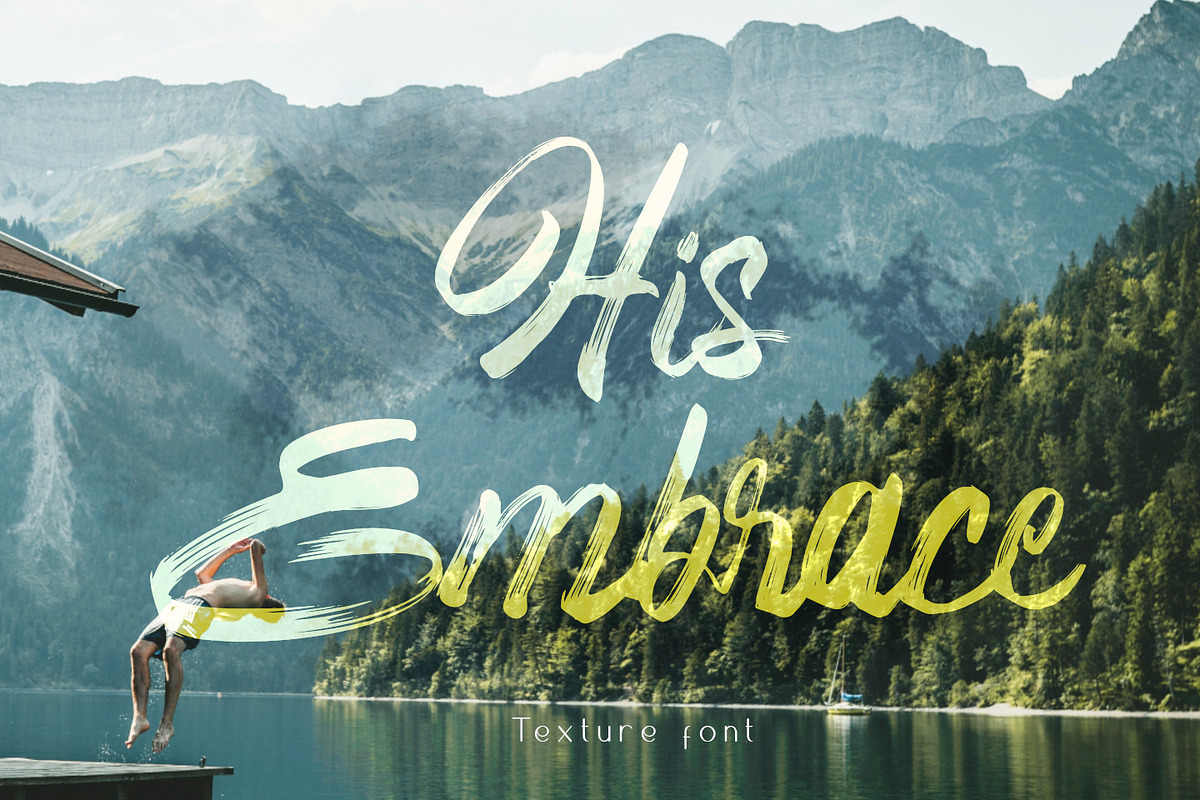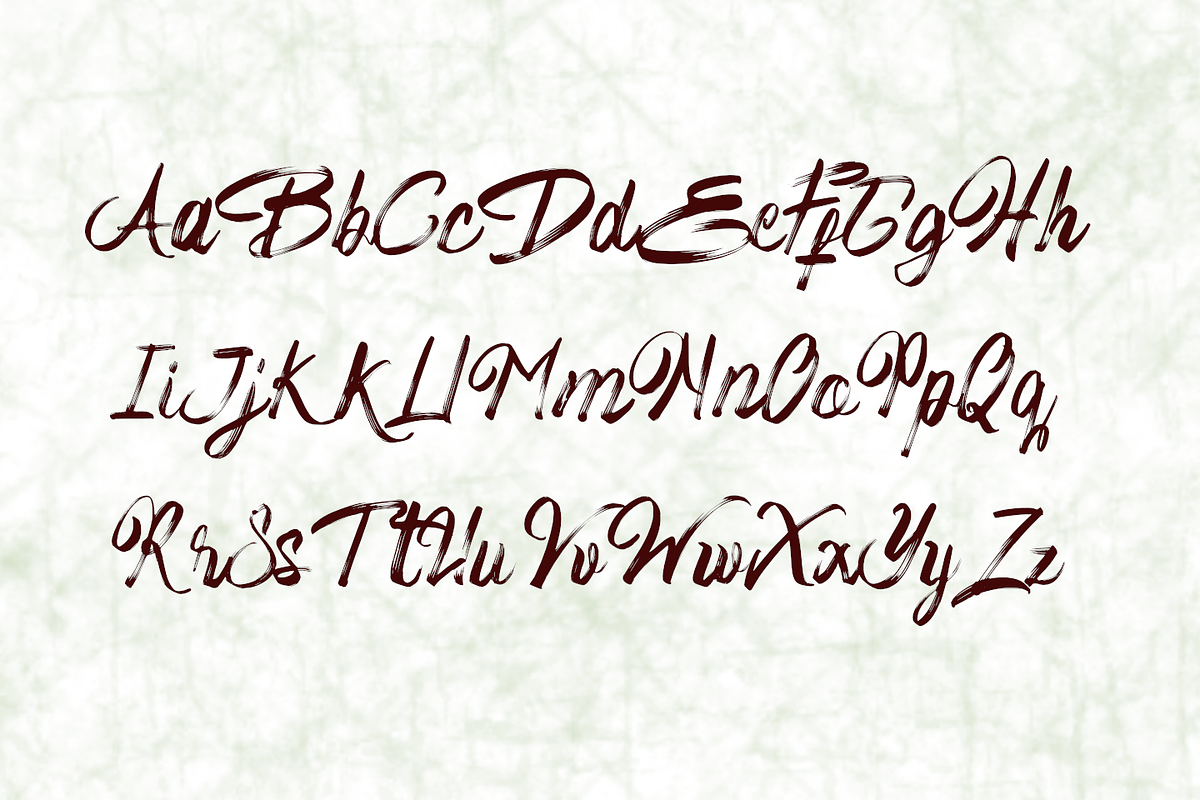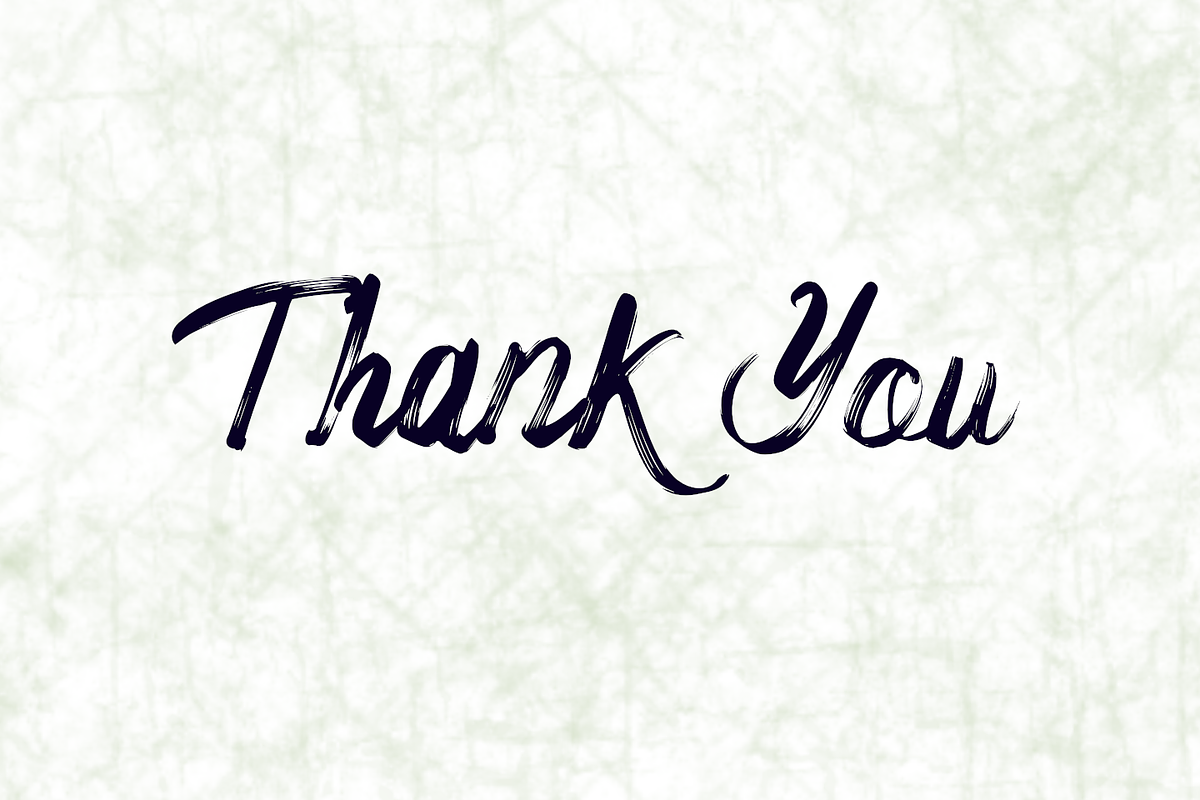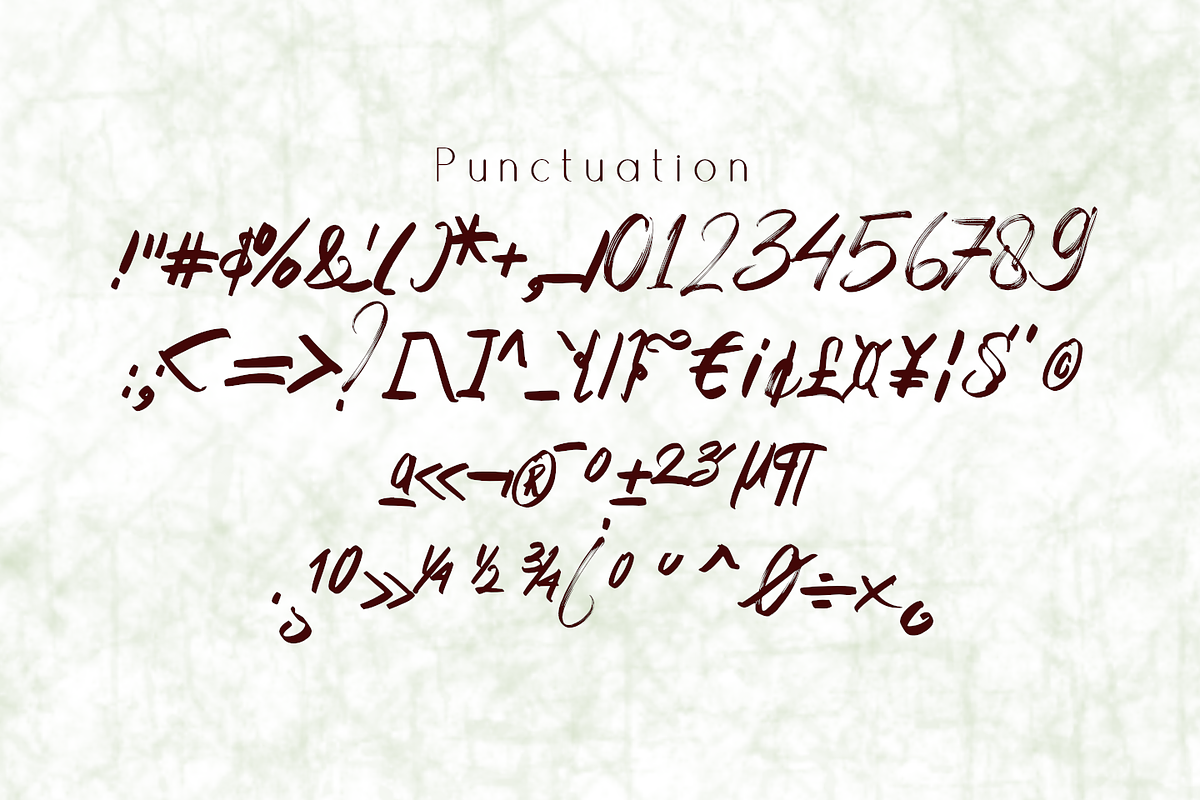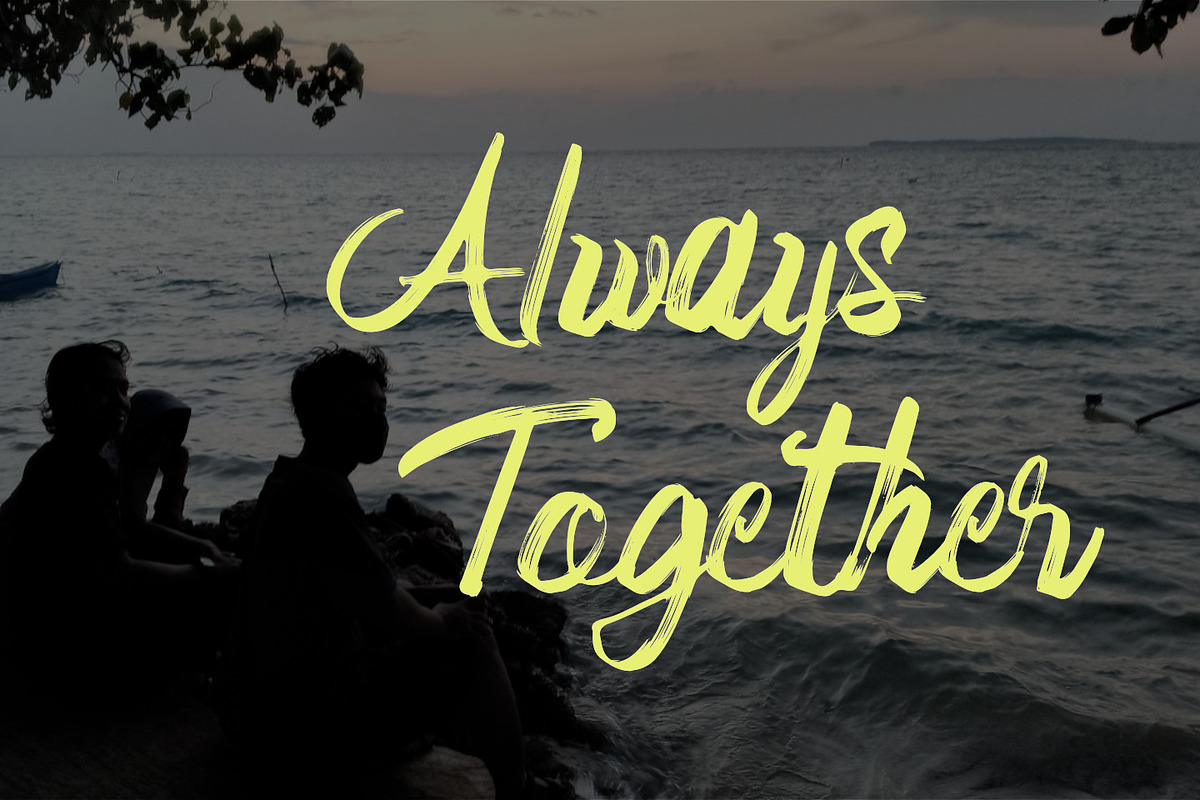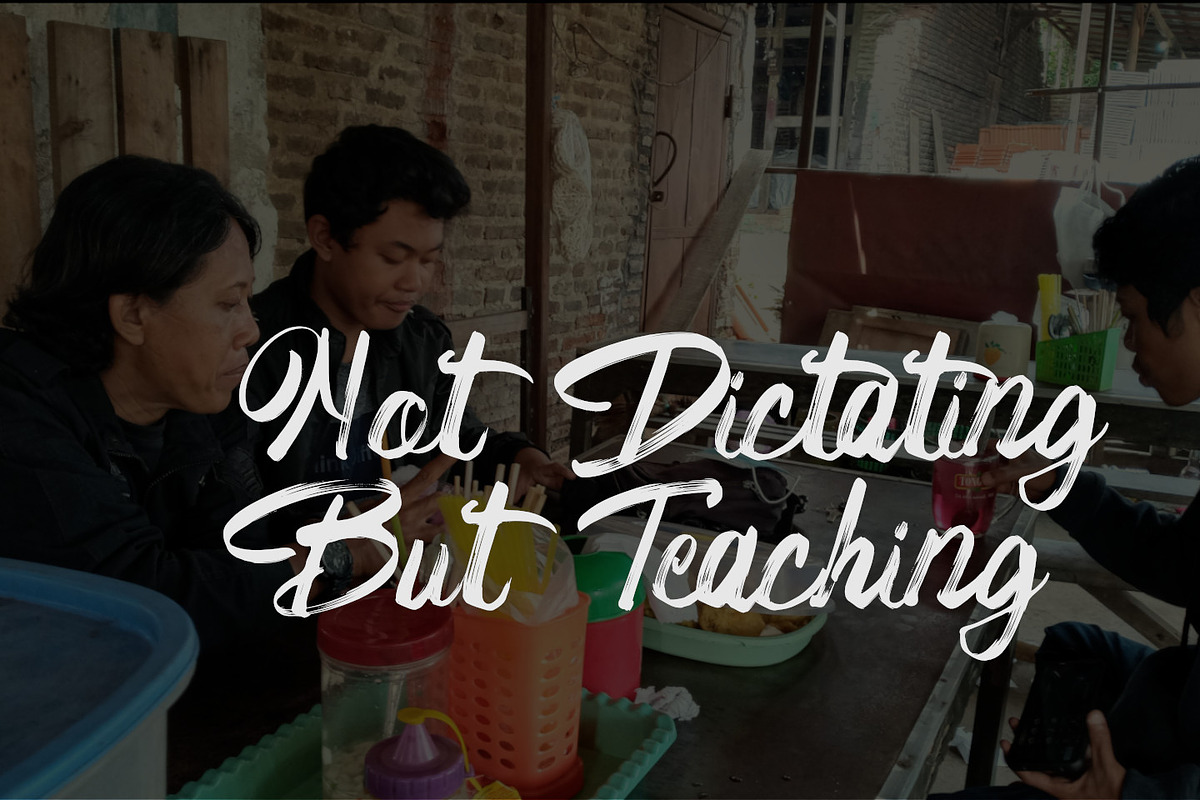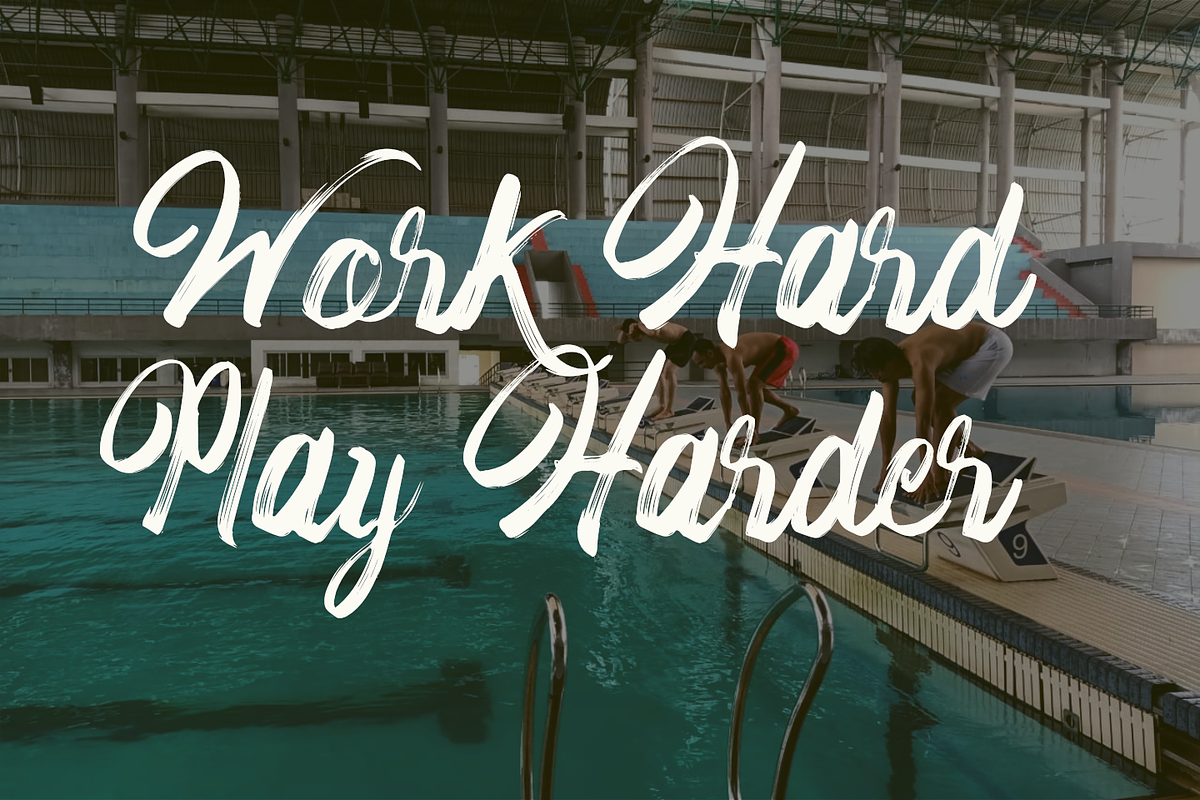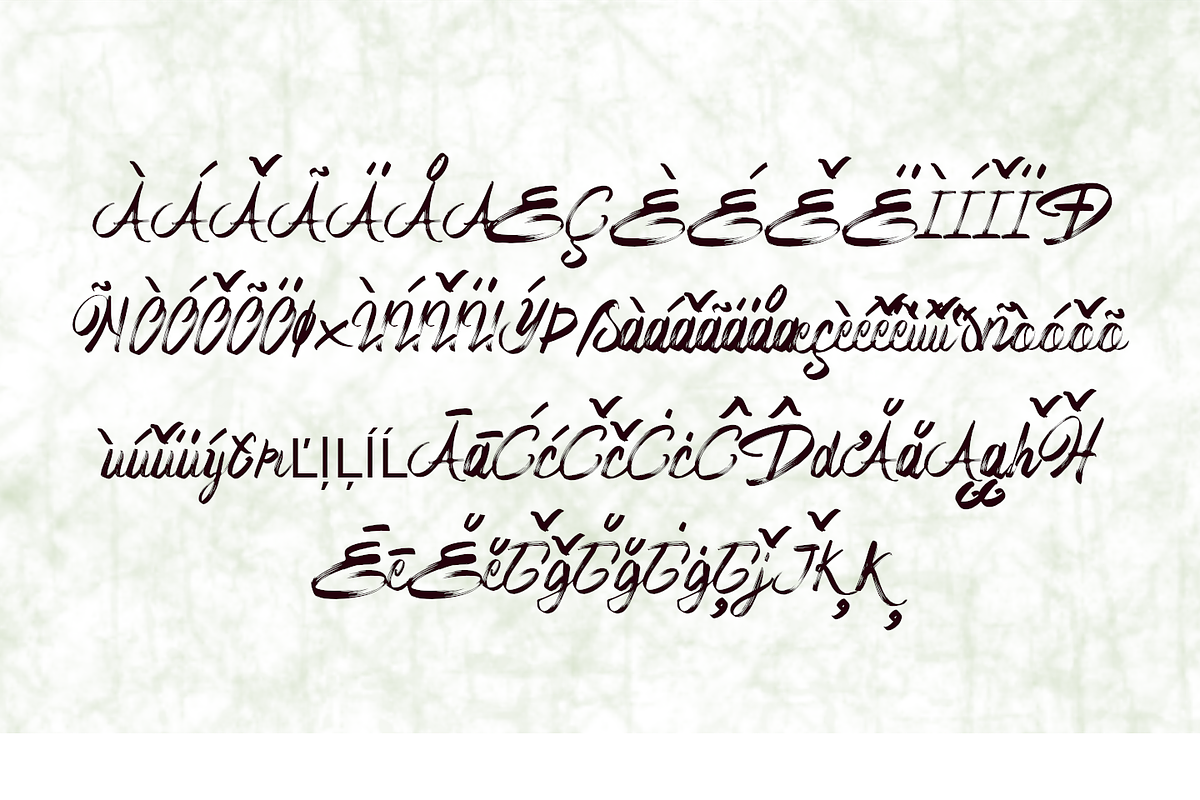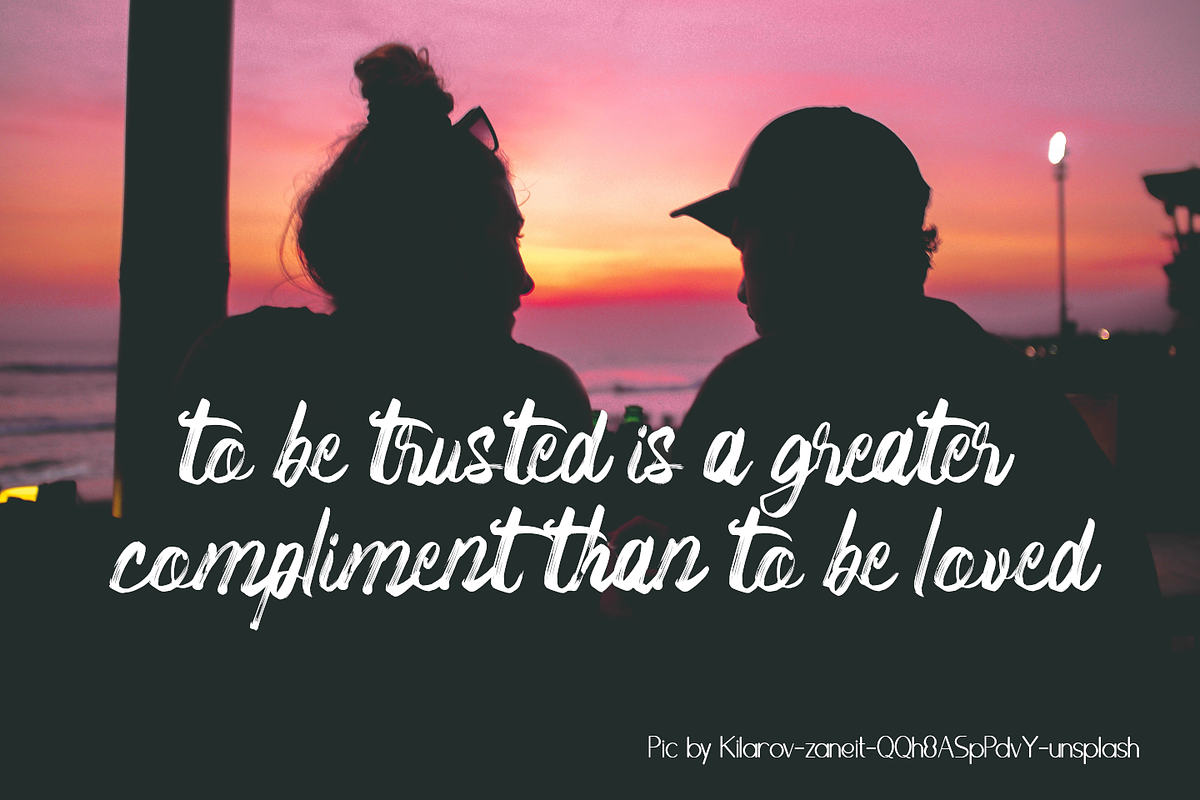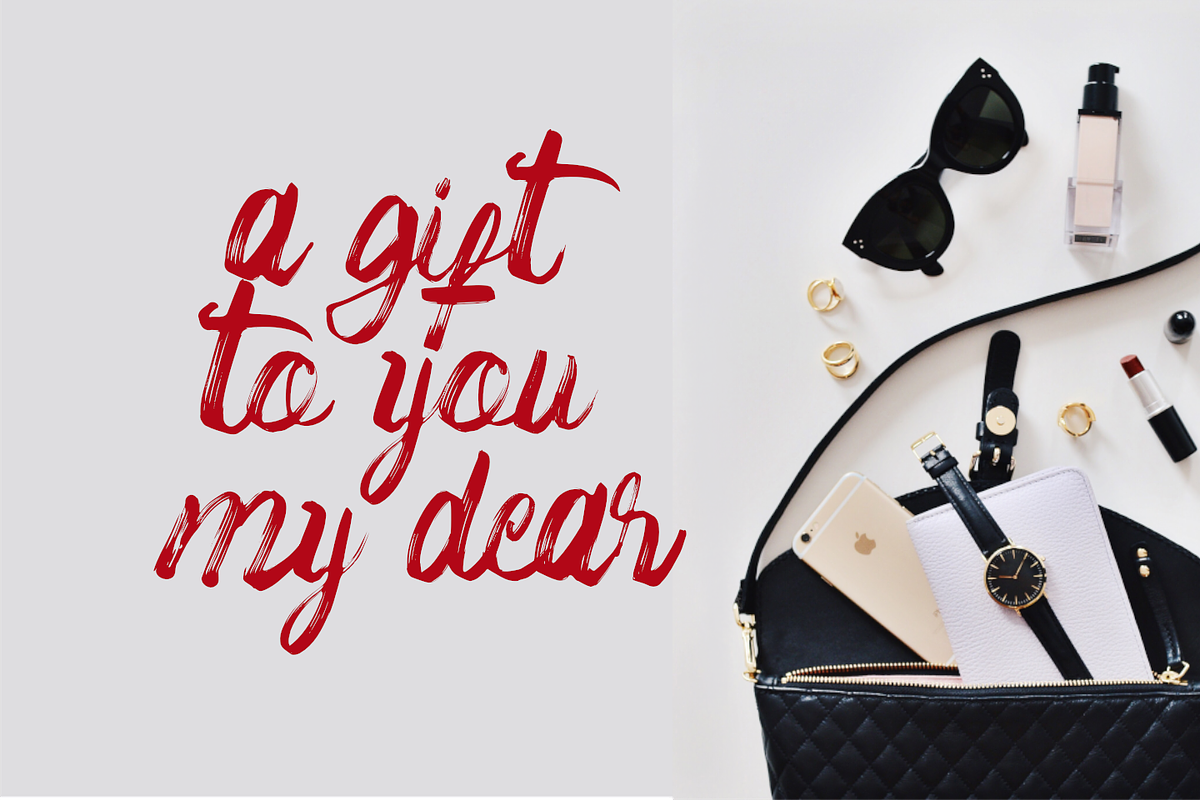
His Embrace Texture Brush
His Embrace is an elegant and refined brushed script font. It has a classy, and modern look that can be used for logos, branding, invitations, stationery, wedding designs, social media posts, and much more!